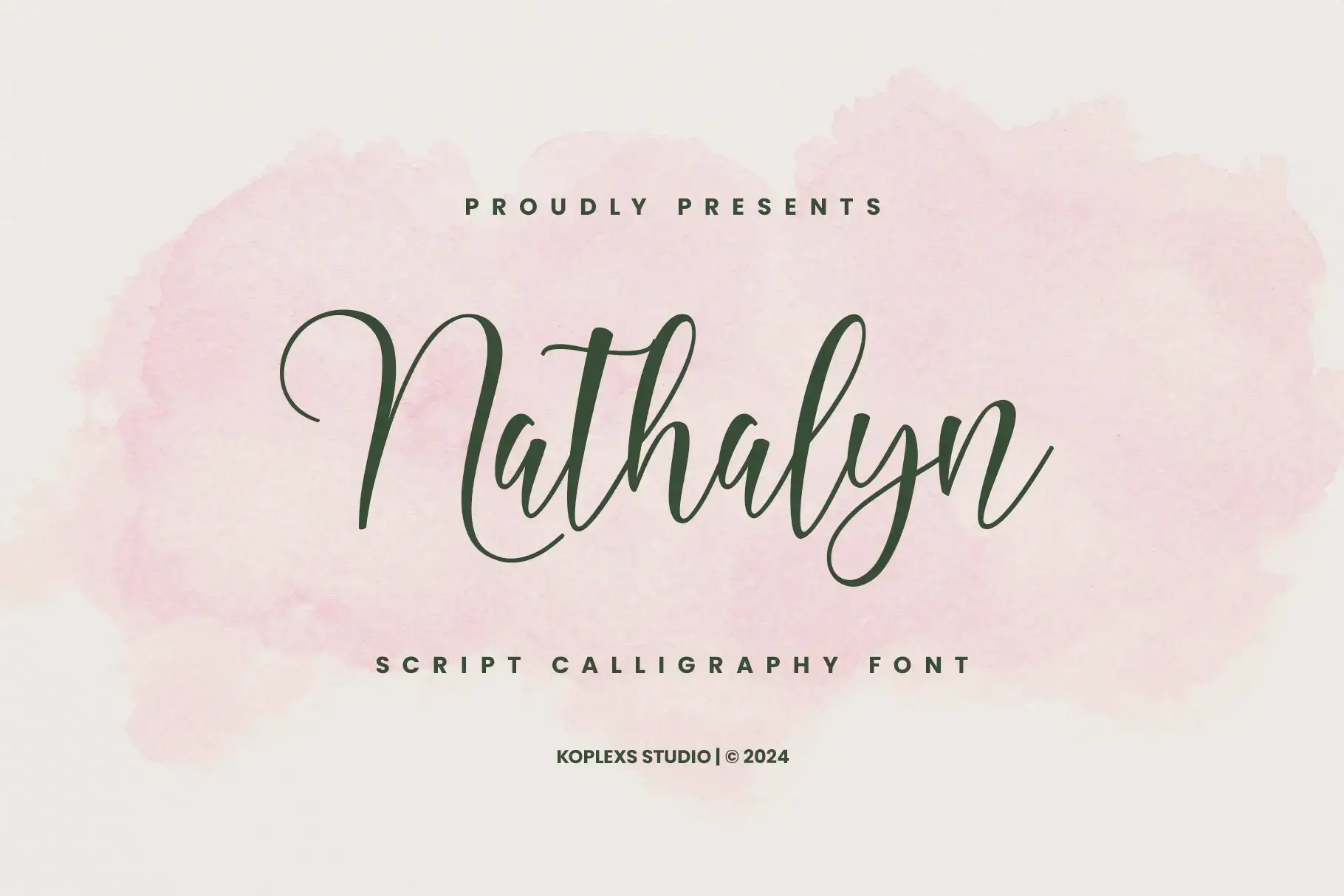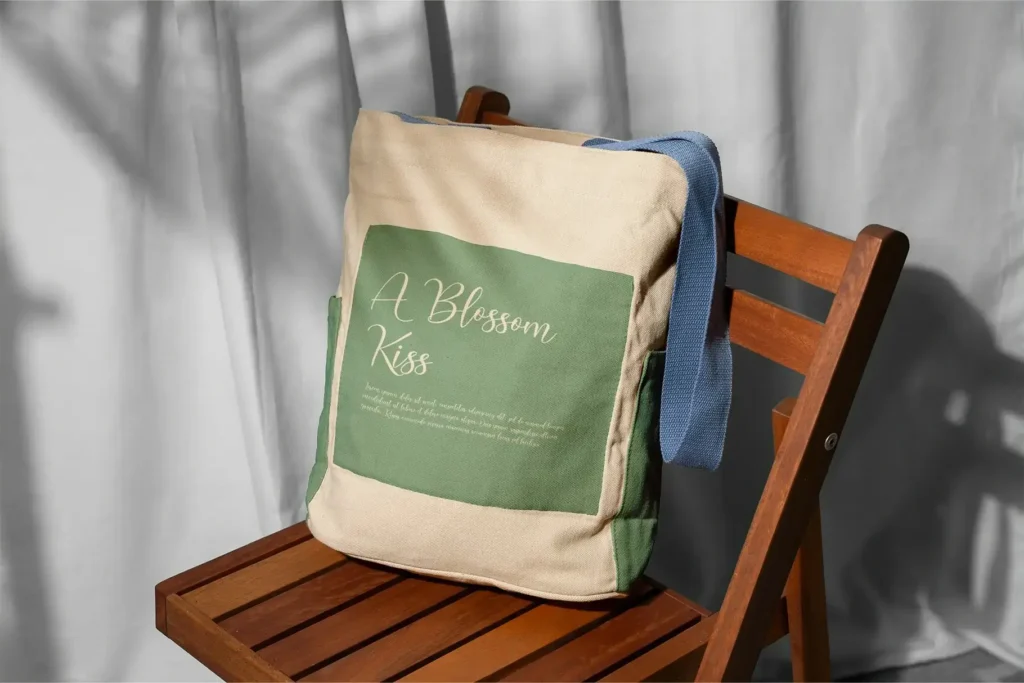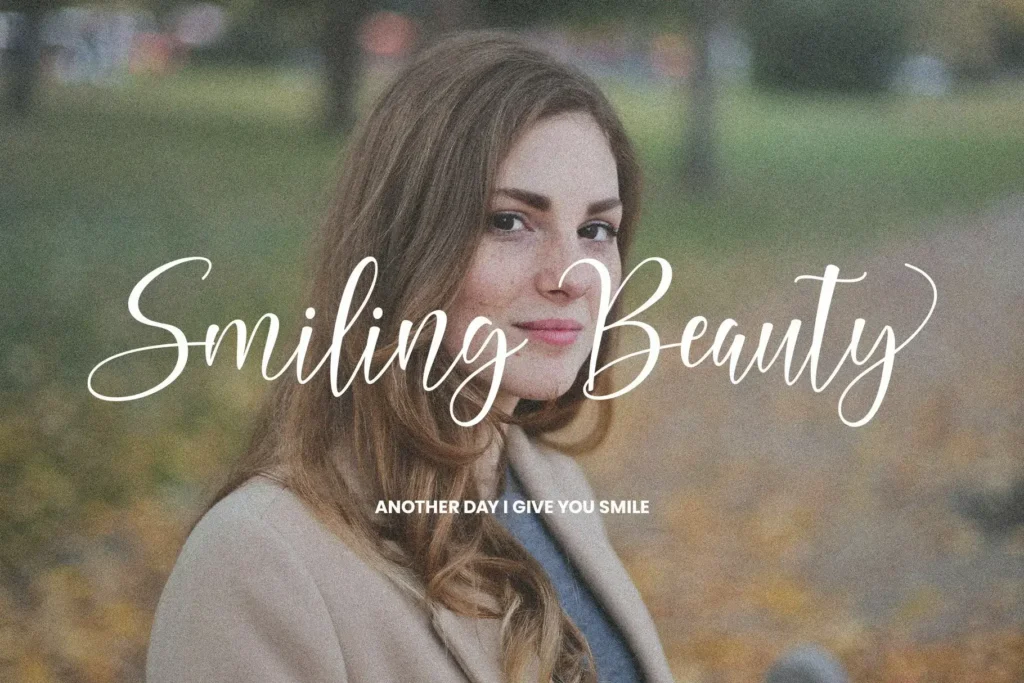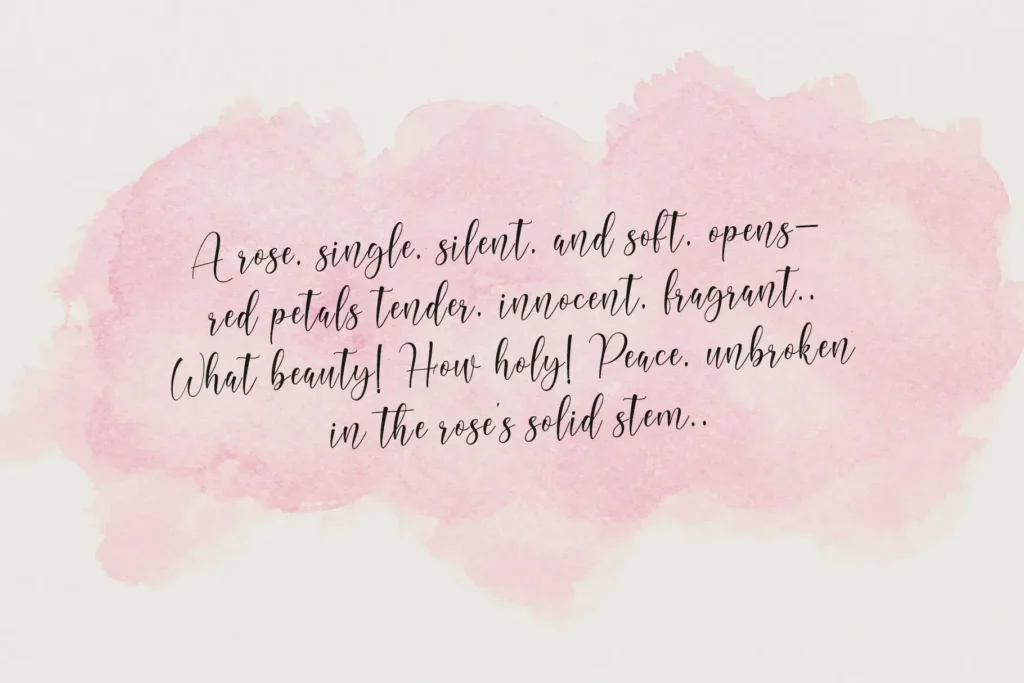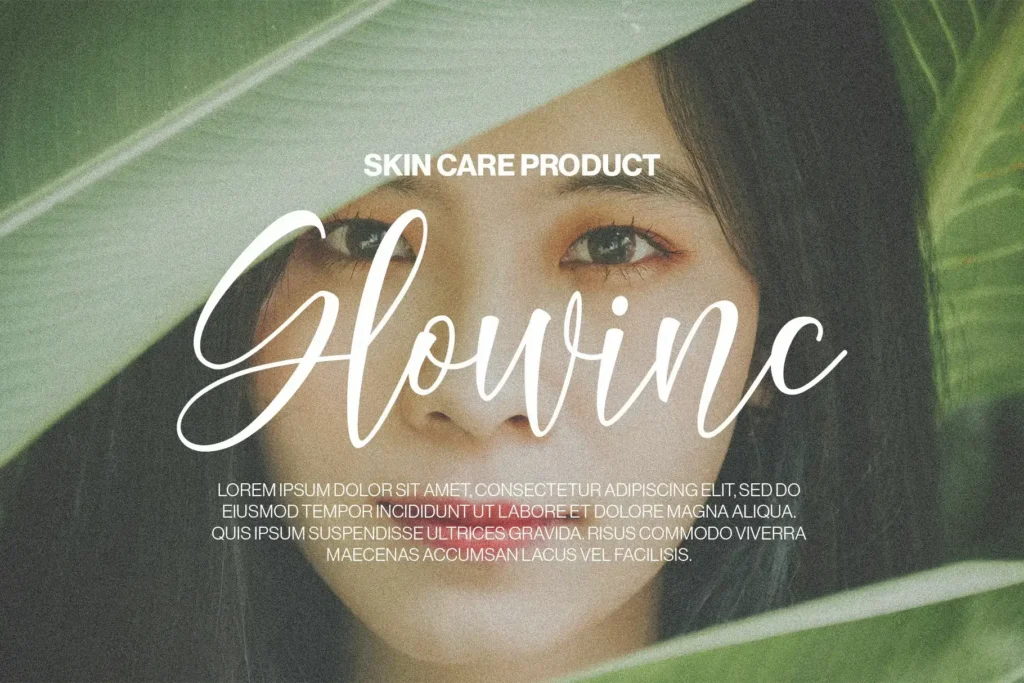
Nathalyn Font
Nathalyn Font – Elegant Script Calligraphy Font
Nathalyn Font is a modern script typeface that combines timeless elegance with a fresh, contemporary feel. Its smooth strokes and graceful curves create a natural handwritten look, making it perfect for designers who want to add sophistication and personality to their projects. This stylish script font works beautifully for branding, wedding invitations, cosmetic packaging, and any design that needs a refined signature touch.
With its flowing cursive typography and expressive capital letters, Nathalyn offers exceptional versatility. Whether you’re designing logos, stationery, product labels, posters, or social media graphics, this handwritten font delivers a polished and modern appearance. Its aesthetic charm makes every word stand out with a blend of warmth, creativity, and professionalism.
As a premium script font option, Nathalyn strikes the perfect balance between elegance and contemporary design trends. Its fancy cursive letters and clean letterforms ensure readability while maintaining artistic flair. From personal branding to high-end product presentations, Nathalyn enhances visual storytelling and elevates your creative work with style and uniqueness.